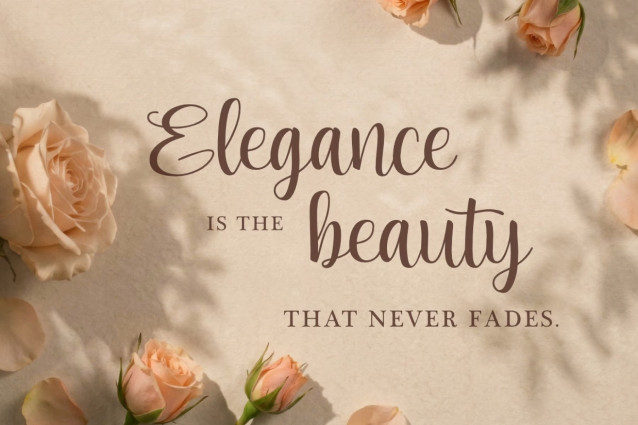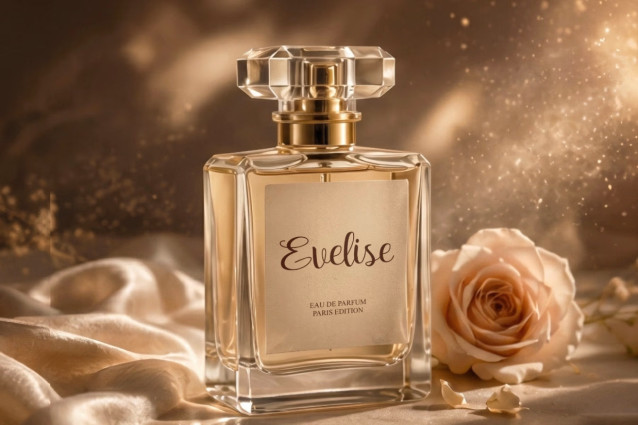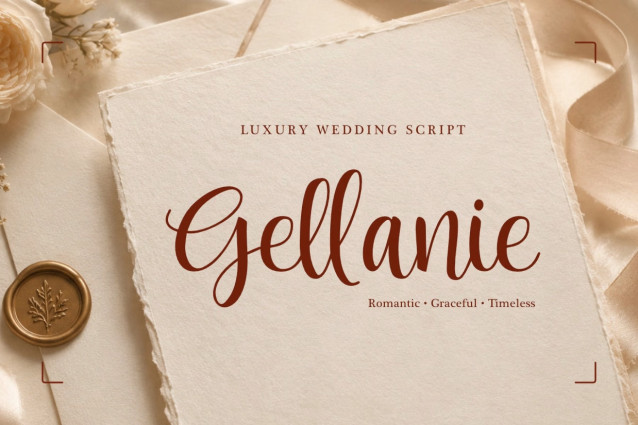
Gellanie Demo Font
Gellanie is a luxury wedding script font distinguished by its smooth handwritten construction, balanced stroke contrast, and flowing rhythm. The letterforms combine tall ascenders, elongated descenders, and softly rounded counters to create an elegant signature-like appearance without sacrificing readability. Its carefully controlled connections produce a natural handwritten flow, while the refined entry and exit strokes add movement and sophistication.
Designed for romantic and upscale presentation, Gellanie brings warmth and refinement to wedding stationery, beauty branding, boutique packaging, artisan products, and luxury marketing materials. The decorative capitals and flowing script structure help create memorable identities, while alternate-style letterforms and connecting characters improve visual harmony, allowing designers to craft polished compositions that feel personal, elegant, and timeless.